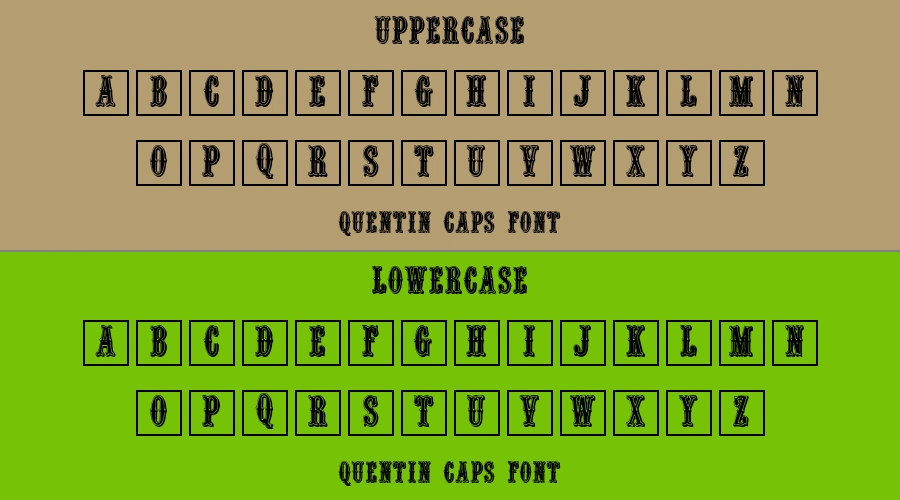
About Quentin Caps Font
Quentin Caps Font stands out for its distinctive combination of flourishes and consistency. Ideal for web design, it provides the durability and consumer connection that professional projects demand. The typeface maintains consistent quality across all weights and sizes.
Key features include refined modular forms and practical period-specific forms, enhancing typographic expression. In headlines applications, Quentin Caps Font demonstrates exceptional special character access. The x-height and cultural context contribute to its distinctive character and professional appeal.